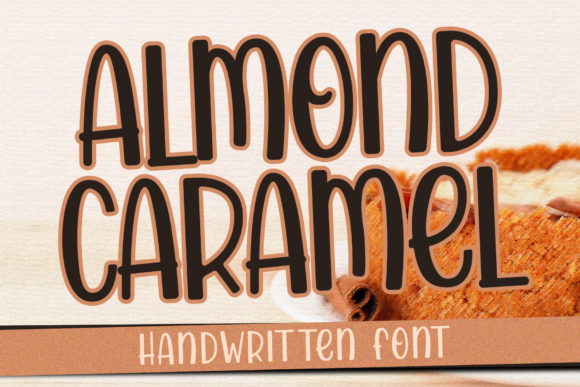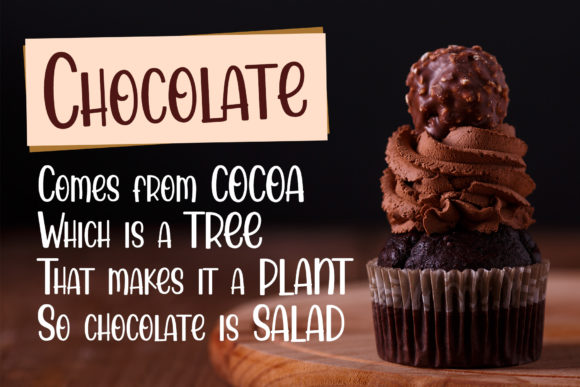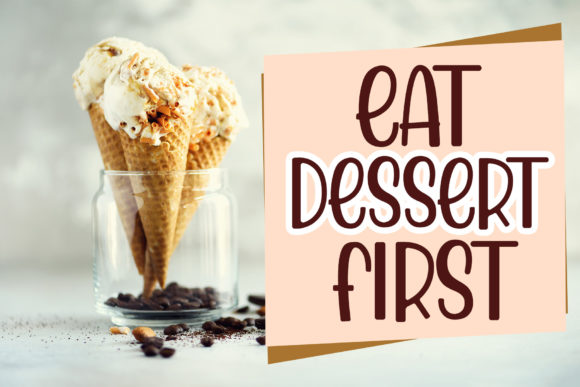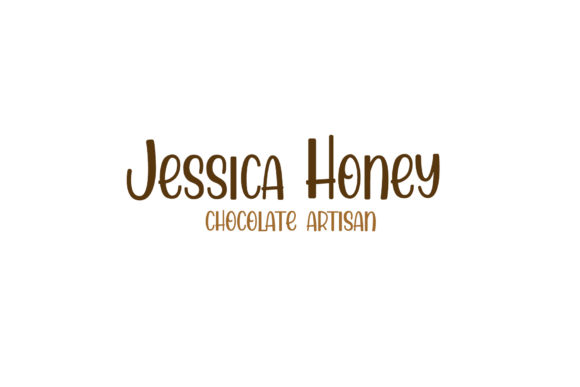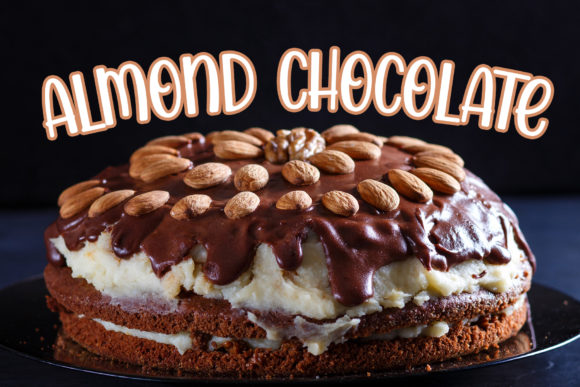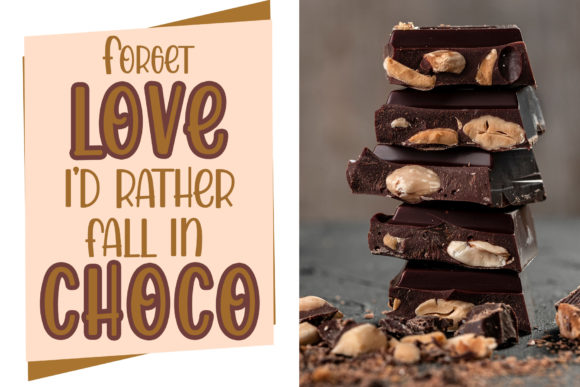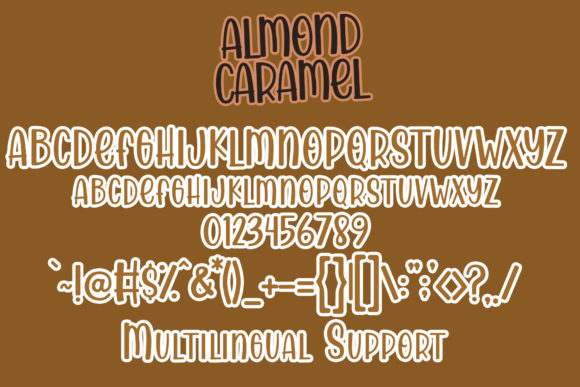
HomeScript FontsAlmond Caramel Font Script Fonts Almond Caramel Font FacebookXPinterestWhatsApp Almond Caramel Font Poster 2 Almond Caramel Font Poster 3 Almond Caramel Font Poster 4 Almond Caramel Font Poster 5 Almond Caramel Font Poster 6 Almond Caramel Font Poster 7 About Almond Caramel Font Almond Caramel is a sweet and relaxed handwritten style font. Get inspired by its friendly charm! DOWNLOAD NOW People also explored Zaheera Font Garden Dingbat Font Hello Komodo Font FP Dancer Serif Font Thinking Talking Font Beeflower Font Gabriella Font Elegant Font Julia Pinky Font 273 0 TagsAlmond Caramel Font Previous articleSunstrike FontNext articleYhasmeera Font LEAVE A REPLY Cancel reply Comment: Please enter your comment! Name:* Please enter your name here Email:* You have entered an incorrect email address! Please enter your email address here Website: Save my name, email, and website in this browser for the next time I comment. Personal Use Free Dandelions Bloom Personal Use Free Read more about this font Bamboomoe Personal Use Free Read more about this font Einstaint Personal Use Free Read more about this font Advantage Personal Use Free Read more about this font BLOG To increase your work productivity, choose the most readable fonts. In today's fast-paced work environment, where digital communication and information consumption are integral to our daily routines, the choice of fonts can significantly impact... Exploring Font Trends How to Install and Use Fonts on Windows, macOS, and Web Projects Best Fonts for T-Shirt Design – Top 2025 Picks